Great graphic design is powered by great font selection. But picking great fonts is a challenge most people. Luckily, Canva has made adding great fonts to your designs much easier. In this tutorial, our team of design experts will cover the best Serif Fonts in Microsoft Word.
1. IBM Plex Serif
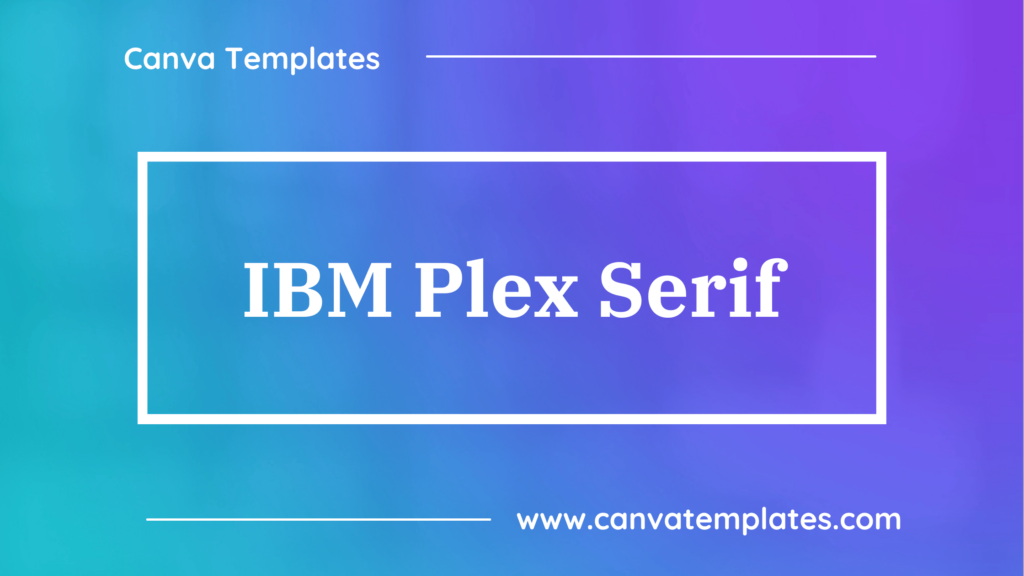
IBM Plex Serif is a versatile typeface designed by IBM to be used globally. It’s a part of the larger IBM Plex family, which also includes IBM Plex Sans, Mono, and Sans Condensed. IBM Plex Serif is a transitional style serif font, meaning it features contrast in stroke weight and tends to have a more vertical stress in the rounded strokes. It is characterized by its excellent legibility and clean, modern aesthetics. The IBM Plex family was designed to function well on digital interfaces, making it a good choice for web and mobile applications.
2. PT Serif
PT Serif is a universal type family designed for use together with PT Sans released earlier. The family includes styles for both Western and Eastern European languages, as well as Old Church Slavonic ligatures and types of numerals.
3. Noto Serif
Noto Serif is a classic, highly-readable serif typeface developed by Google. Its goal is to support all languages with a harmonious look and feel, hence the name ‘Noto’ which is short for ‘no tofu’, referring to the blank boxes that appear when a computer doesn’t support a particular character.
4. Libra Serif Modern
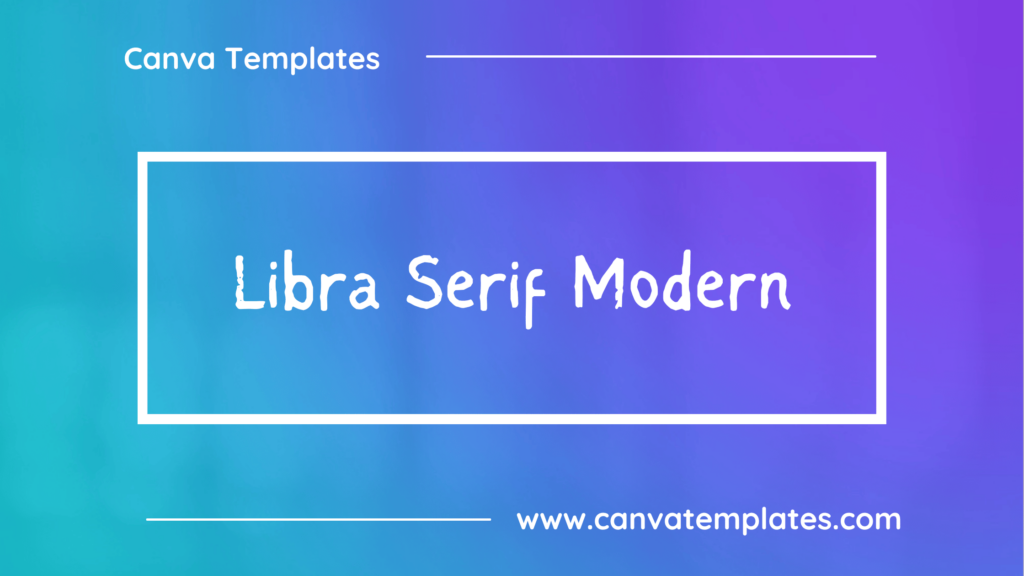
Libra Serif Modern is the reserved font name for the font, which is based on Libra Serif according to SIL Open Font License. Libra Serif Modern is intended to give a chance for using the so-called Bulgarian Cyrillic letter form model as a default model for the Cyrillic glyphs in the Unicode range uni0410:uni044F.
5. Granaina
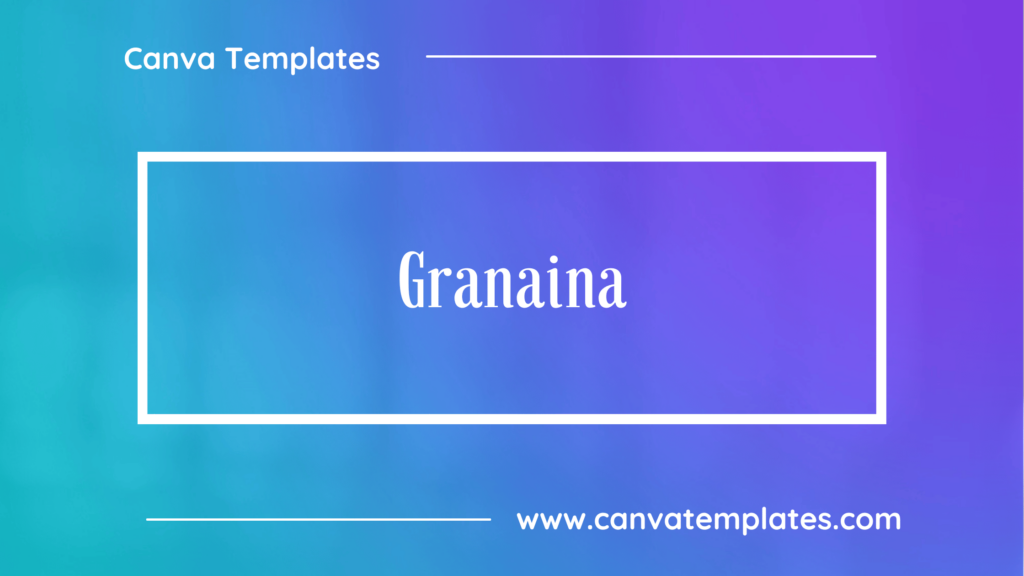
Granaina Font is a splendid serif typeface that comes in a single regular style. Zer in da house is considered the primary designer for this top-notch typographical composition in 2009. This typeface is inspired by Andalucía-Spain (Granada) street signals/designs which are made of pottery. Crafted with unique texture adding more power in legibility and structure.
6. Lustria
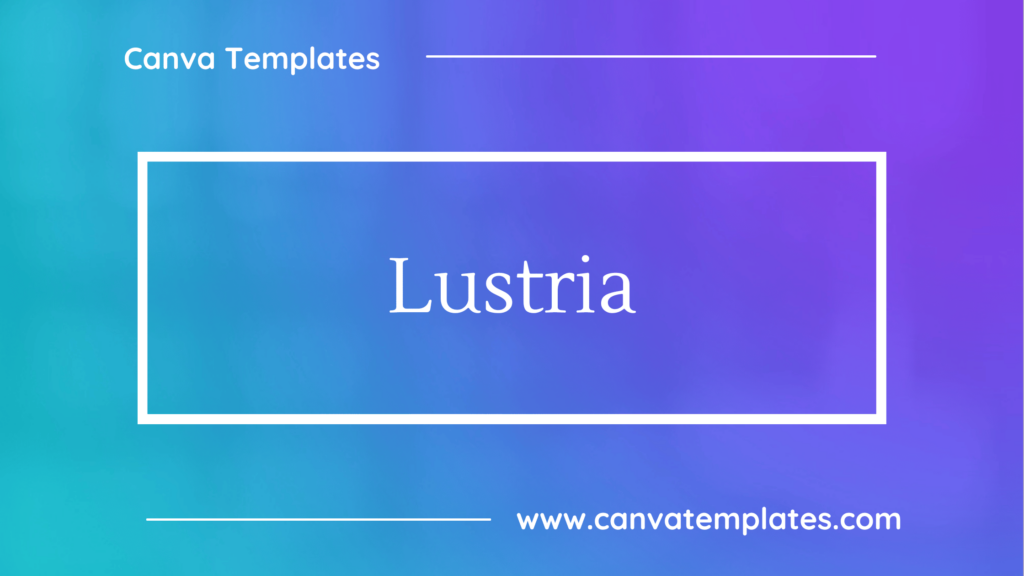
Lustria is a rounded-serif text typeface with details that make it interesting to use at larger display sizes as well. Starting in 1999, this typeface has aged to perfection and is finally ready for public consumption.
7. Literata
Literata is a serif typeface custom designed for Google Play Books. It has a unique, slightly condensed structure and features varying stroke widths, giving it a gentle, flowing rhythm that’s ideal for long texts.
8. Libre Baskerville
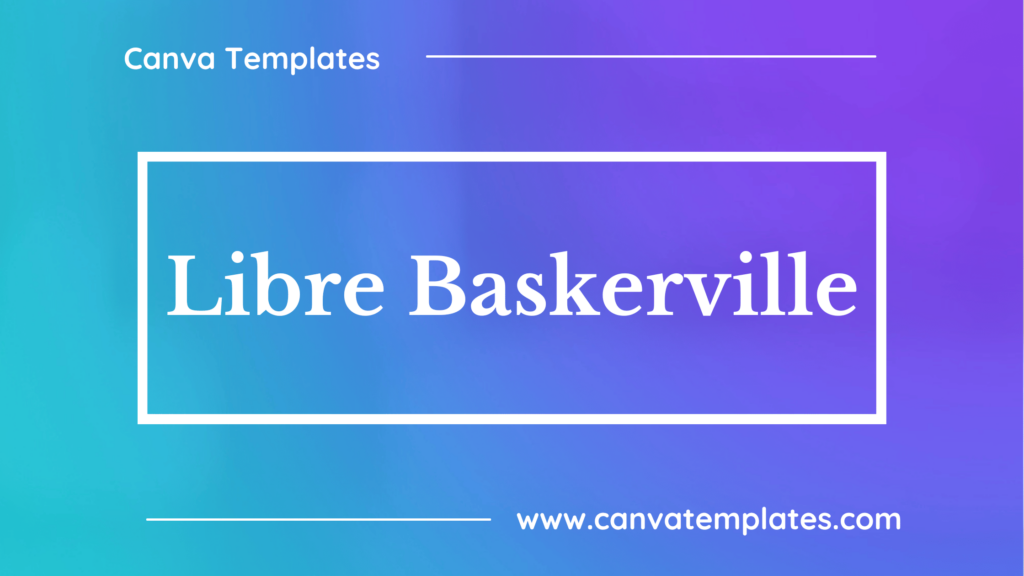
Libre Baskerville is a web-friendly version of the classic Baskerville typeface. It’s optimized for body text but can also work well in headers, offering a balance of classical elegance and contemporary clarity.
9. Playfair Display
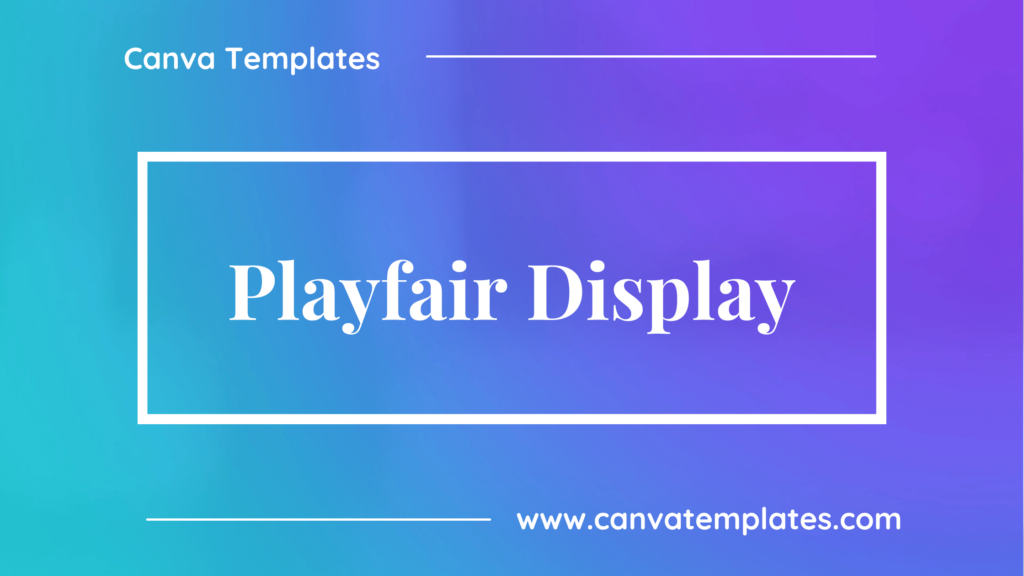
Playfair Display is a transitional serif font with a refined, elegant appearance. It features high contrast between thick and thin strokes, making it well-suited for headlines, titles, and other display purposes where a touch of sophistication is desired.
10. Giaza
Giaza is a stylish typeface with a high level of contrast between its thick and thin lines, typically found in modern serif typefaces. It has a somewhat luxurious feel and can be used to impart an elegant and sophisticated look to your designs.